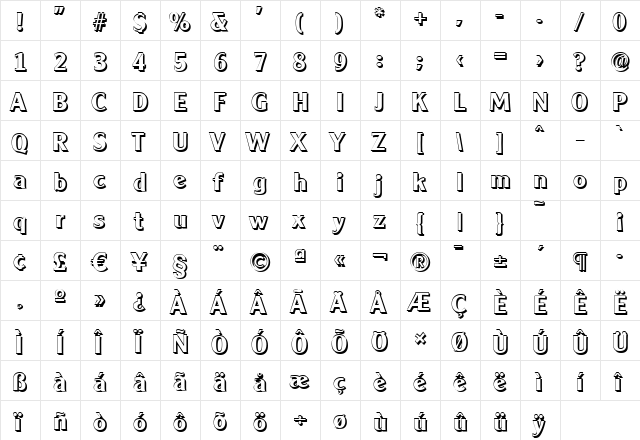
AlexanderBeckerShadow Bold
Design Context for AlexanderBeckerShadow Typeface
AlexanderBeckerShadow is built around its visual character rather than neutral utility — its distinctive forms are designed to make an impression at display sizes. The heavy weight commands attention and anchors typographic hierarchies.
Font Pairing: Pair with a clean neutral sans-serif for body copy to let AlexanderBeckerShadow's character lead without overwhelming the composition.
Pro Tip: Treat AlexanderBeckerShadow as the centrepiece of your typographic hierarchy. One strong heading set in a decorative face can carry an entire layout.